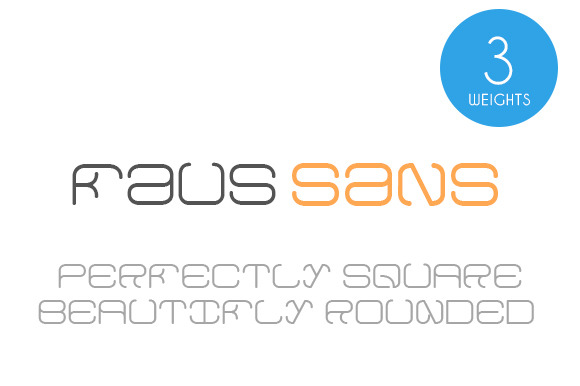
Faus Sans Font Family
This is a modern and minimalism rounded square font. It is great for modern titles and names in advertisements, posters, and brands/logos or products.
It comes in 3 weights, Regular, Bold and Black. Both capitals and lower case. It requires a higher kerning when in bold or black.